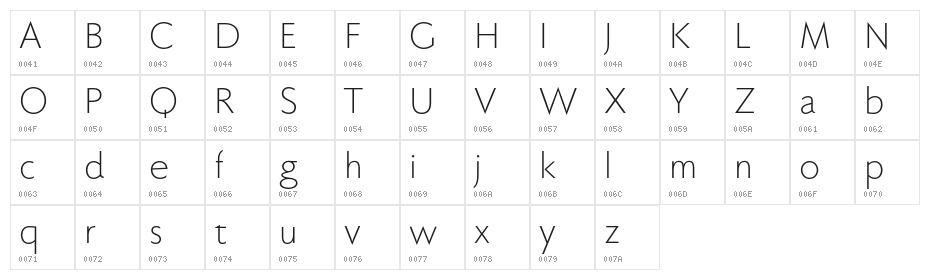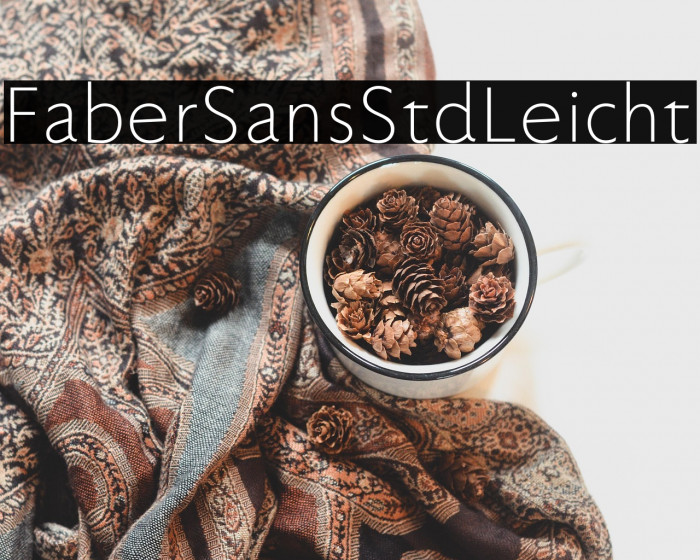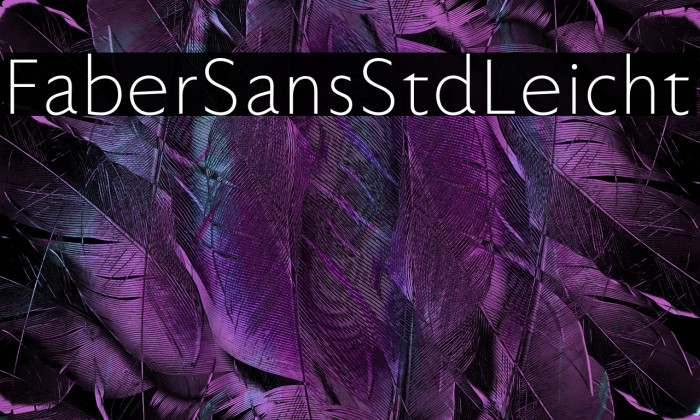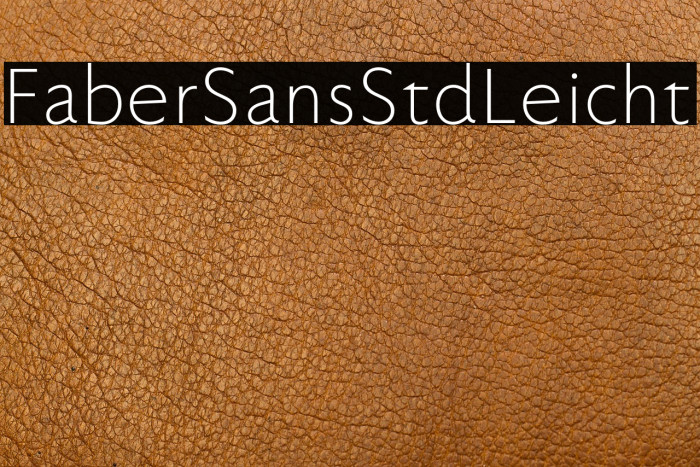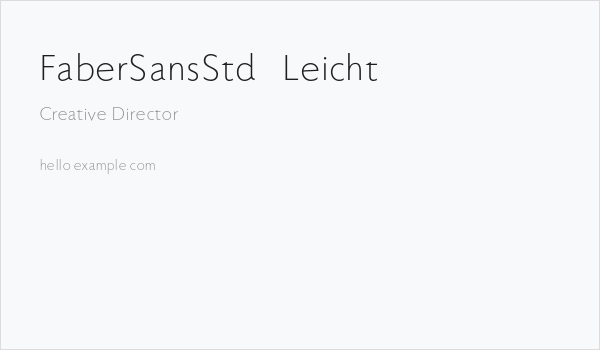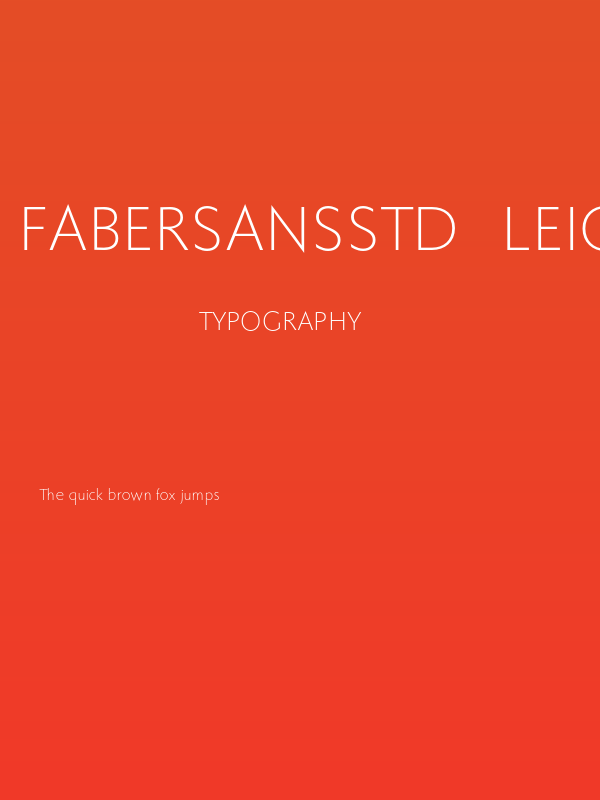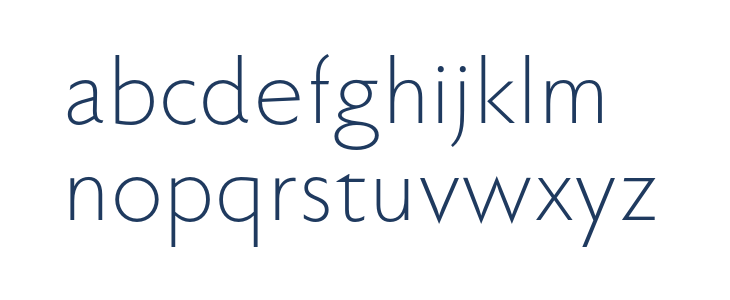
FaberSansStd-45Leicht Font
FaberSansStd-45Leicht Description
This typeface exhibits a clean and modern sans-serif style, characterized by its simplicity and elegance. The letters are evenly spaced with a consistent stroke width, creating a harmonious and balanced appearance. The uppercase characters are tall and slightly narrow, while the lowercase letters maintain a uniform height, contributing to a streamlined look. The font's minimalistic design is enhanced by its lack of serifs, making it highly legible and versatile for various applications. The numerals and special characters are designed to match the overall aesthetic, ensuring consistency across all text elements.
| Proposed Projects | Ideal for corporate branding, web design, editorial layouts, and minimalist graphic design projects. |